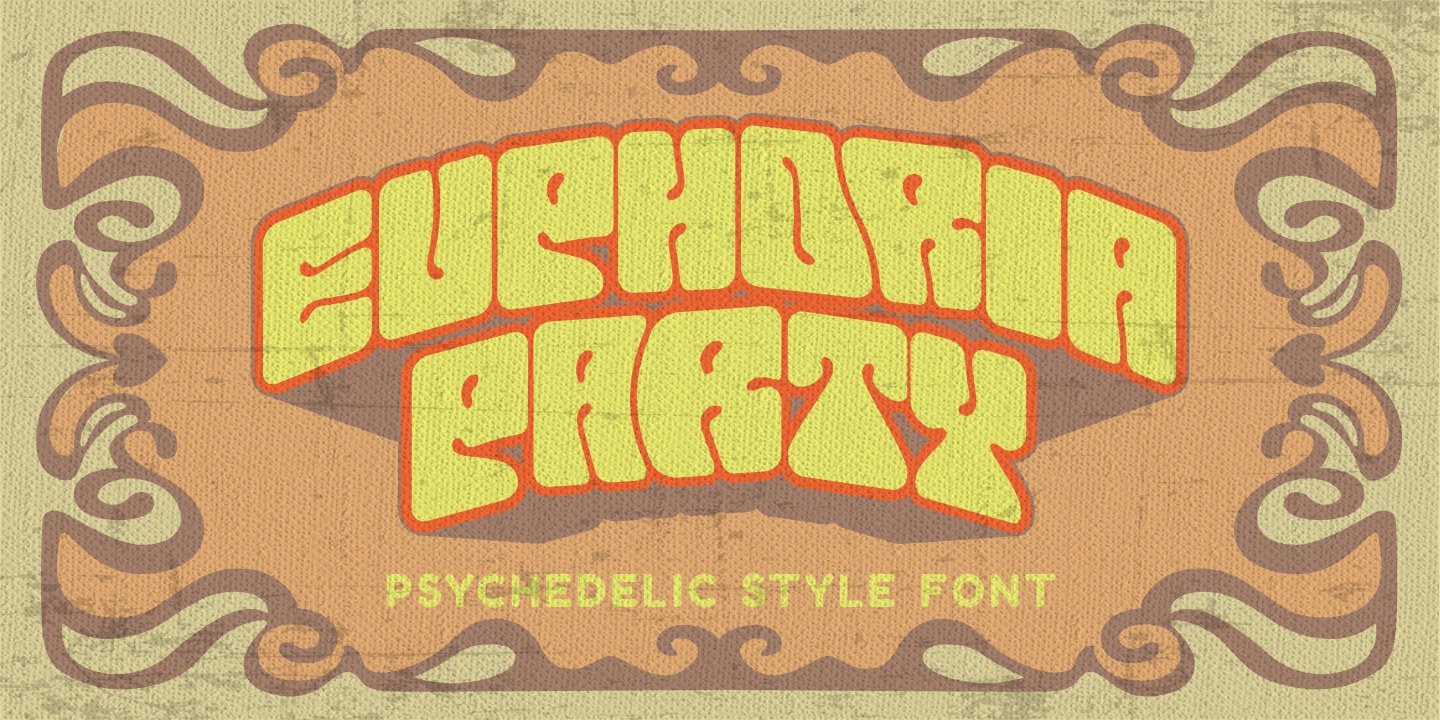
Euphoria Party Font demonstrates remarkable versatility across celebratory design applications including birthday party invitations, festival event branding, nightclub promotional materials, wedding celebration graphics, graduation party designs, New Year's Eve campaigns, carnival advertising, dance party flyers, celebration product packaging, and festive social media graphics. This exuberant typeface seamlessly combines playful energy with sophisticated party aesthetics, making it an invaluable resource for designers working on projects that demand joy, excitement, and memorable celebratory impact.
What makes Euphoria Party Font particularly exciting is its infectious ability to capture the pure essence of celebration and joyful euphoria through dynamic letterforms that seem to dance and sparkle with festive energy. The font features bold, expressive characters with playful curves and energetic flourishes that instantly communicate happiness, excitement, and party atmosphere. Its vibrant design incorporates celebratory elements and rhythmic spacing that creates visual movement and festive momentum, making text appear to pulse with party energy. The typeface's ability to convey both fun and sophistication makes it perfect for brands seeking to create memorable celebratory experiences while maintaining professional appeal. Each character has been carefully designed to maximize joyful impact while ensuring excellent readability across party materials, from intimate invitation cards to large-scale festival banners.
The Euphoria Party Font family encompasses energetic variations including Light, Regular, Bold, and Ultra Bold weights, each maintaining the core celebratory aesthetic while offering different levels of festive intensity. The family also features condensed versions for space-efficient party layouts and extended variants for maximum celebratory impact in headline applications. Special party cuts may include outline styles that enhance decorative possibilities, shadow versions for dimensional effects, and gradient-ready variants that amplify the font's festive character for colorful party graphics and celebration materials.
Event professionals consistently choose Euphoria Party Font Free Download for projects requiring authentic celebratory appeal and joyful visual communication. This exceptional typeface has gained recognition in the entertainment industry for its ability to instantly create party atmosphere and emotional excitement through expertly crafted celebratory typography. The font's specialized OpenType features include festive alternates, celebratory ligatures, and party-themed symbols that support comprehensive celebration branding and joyful event communication needs.
Whether you're developing party event branding, creating celebration marketing materials, designing festive product packaging, or crafting joyful social media campaigns, Euphoria Party Font delivers outstanding results. Its celebratory aesthetic makes it particularly appealing to event planners, entertainment venues, party supply companies, celebration brands, and lifestyle organizations seeking to communicate joy, excitement, and memorable party experiences through their visual identity.
The font's technical excellence ensures optimal performance across all celebratory applications while preserving its energetic party character. It includes comprehensive character encoding that supports international celebration markets, making it suitable for global party brands and multilingual festive projects. The careful optimization guarantees vibrant rendering across various party media, maintaining the font's joyful qualities whether displayed on digital party invitations or printed on celebration merchandise.
Professional designers value Euphoria Party Font's ability to convey celebration and happiness while maintaining commercial viability and brand effectiveness. Its energetic presence creates immediate emotional connection and party excitement while remaining highly functional for comprehensive celebration branding systems. The font's euphoric character helps organizations establish memorable party experiences while connecting with audiences who value joy, celebration, and unforgettable festive moments.